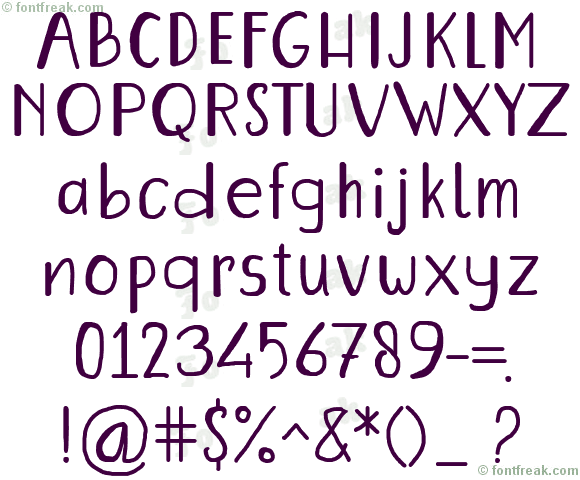
Hilona
About Hilona
Hilona, designed by Situjuh Nazara and released in 2018, is a captivating display typeface that exudes a modern charm. This font is categorized as a sans-serif typeface, characterized by its clean lines and minimalistic aesthetic. Its slightly rounded strokes provide a friendly and approachable feel, while the consistent stroke weight creates a harmonious balance throughout the characters. The spacing is thoughtfully designed, allowing for legibility across various sizes, making it an excellent choice for both digital and print media.
The Hilona font is ideal for a variety of creative projects. It shines in wedding invitations, where its elegant yet contemporary style adds a touch of sophistication. Additionally, it is perfect for restaurant menus, providing a fresh and inviting look that can enhance any dining experience. Movie posters can also benefit from Hilona's unique character, as it draws attention and conveys a modern vibe. Graphic designers will find it useful for branding projects, where a memorable and distinctive font can make a lasting impression. Content creators seeking to elevate their social media graphics will appreciate Hilona's versatility and visual appeal.
What truly sets Hilona apart is its ability to blend modern design principles with a welcoming aesthetic. Its distinctive style not only enhances visual communication but also adds a personal touch, making it an exceptional choice for anyone looking to create memorable designs.